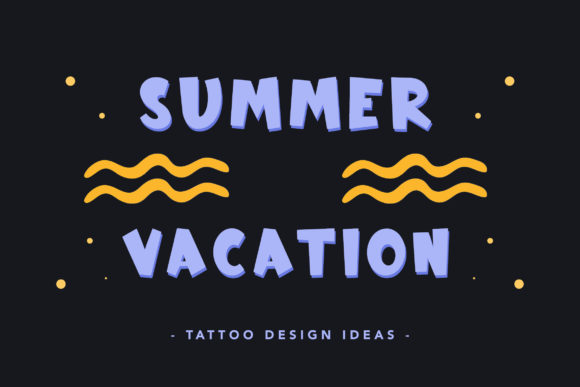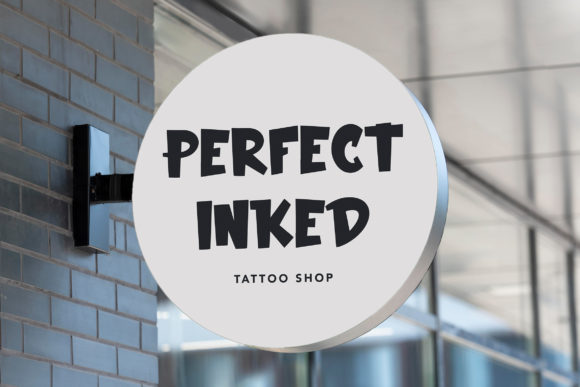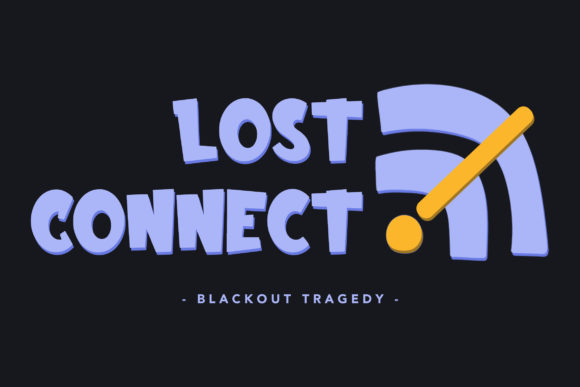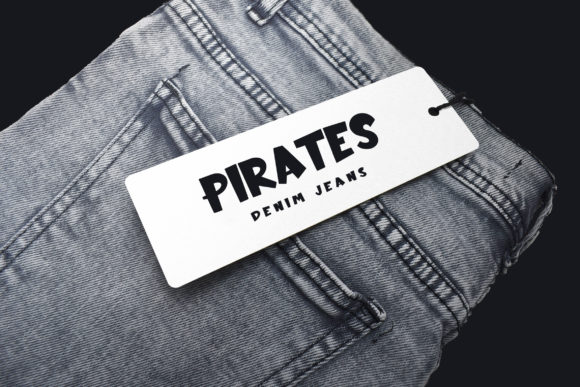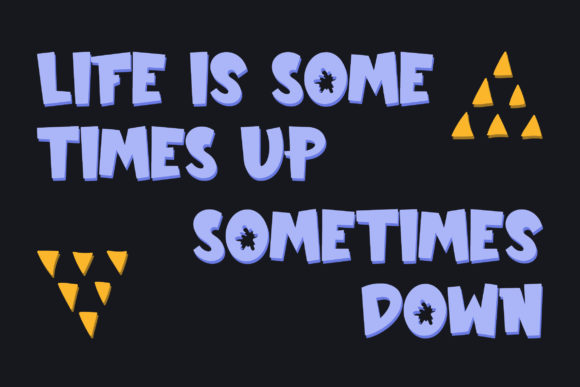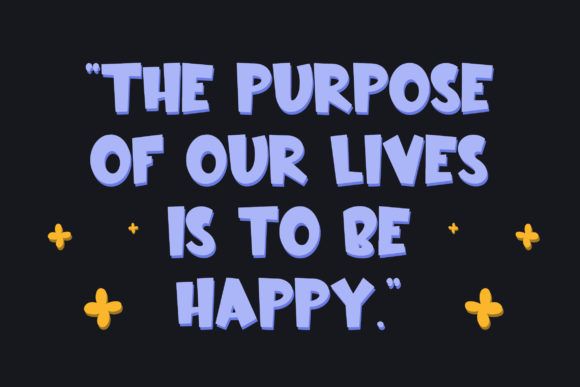
Introduction to Absolute Inky Font
Absolute Inky – Funny Comic Display Font with distinctive characters.
It is perfect for branding projects, logos, wedding designs, media posts, advertisements, product packaging, product designs, labels, photography, watermarks, invitations, stationery, and any project that needs cool typography This font is PUA encoded, which means you can access all of the glyphs and swashes with ease.
Absolute Inky Font offers exceptional quality and versatility, making it a valuable addition to your design toolkit. Whether you’re creating for personal projects or commercial use, Absolute Inky Font delivers professional results.